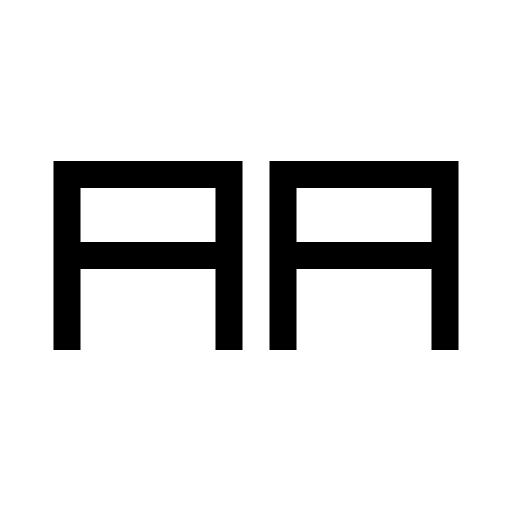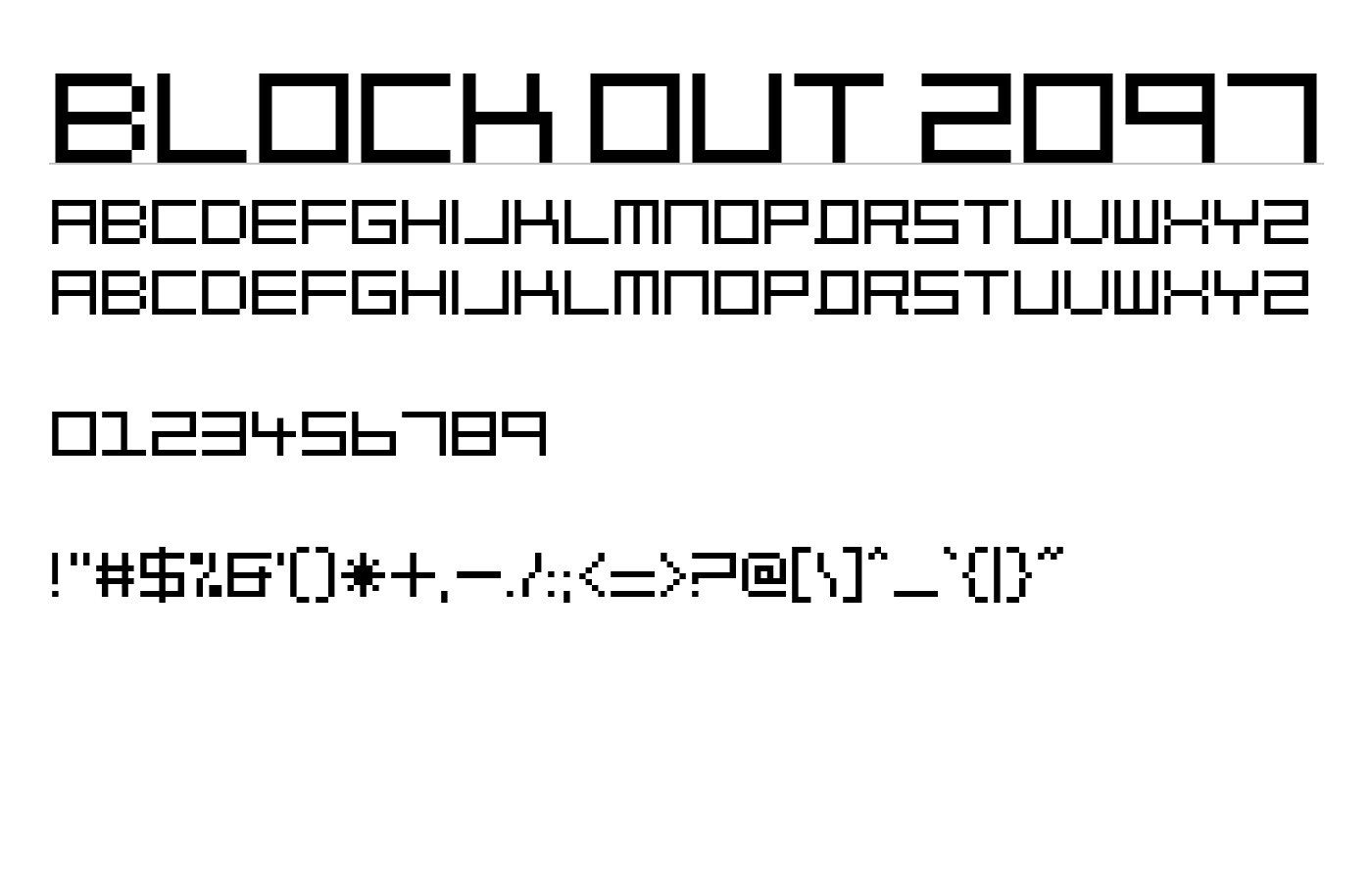
Block Out 2097 is a modern, geometric sans serif font with a digital, pixel-inspired design characterized by its rigid, square-shaped letterforms and uniform stroke weight. Its condensed width and high x-height give it a technical and futuristic feel, making it ideal for technology branding, gaming interfaces, and digital-themed projects that require a bold, technical aesthetic. This font works best in headlines and logos where its distinct, edgy style can create a strong visual impact.
Block Out 2097 Font